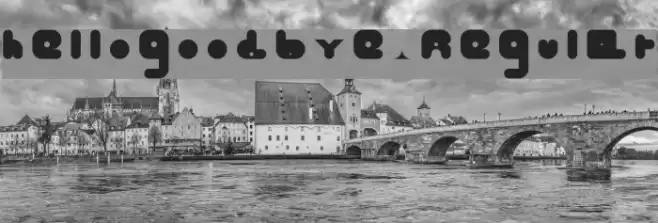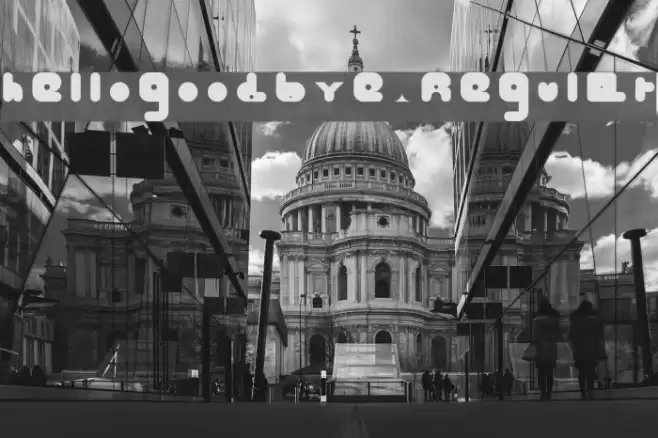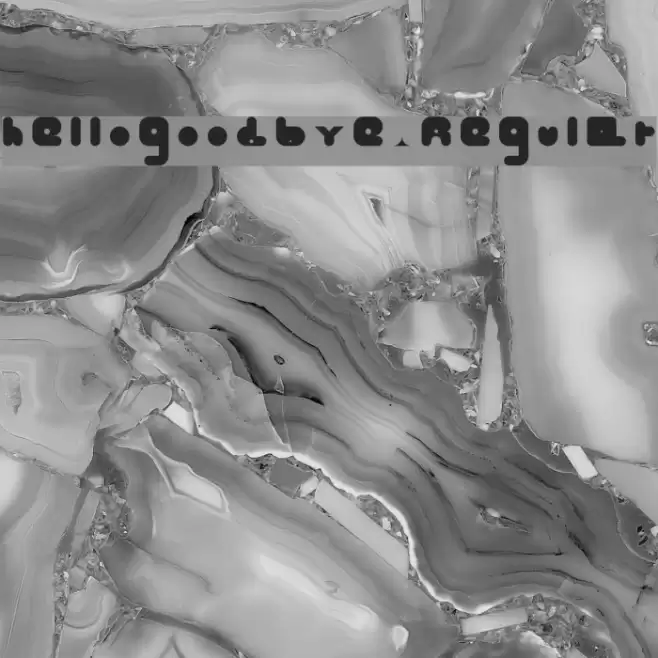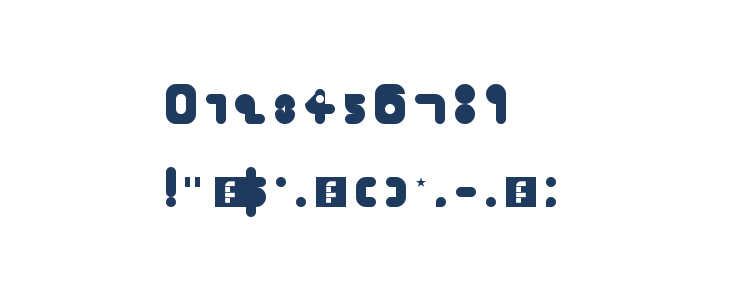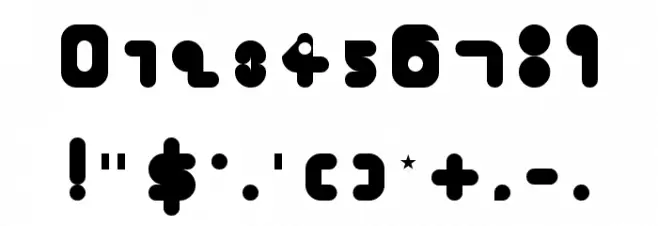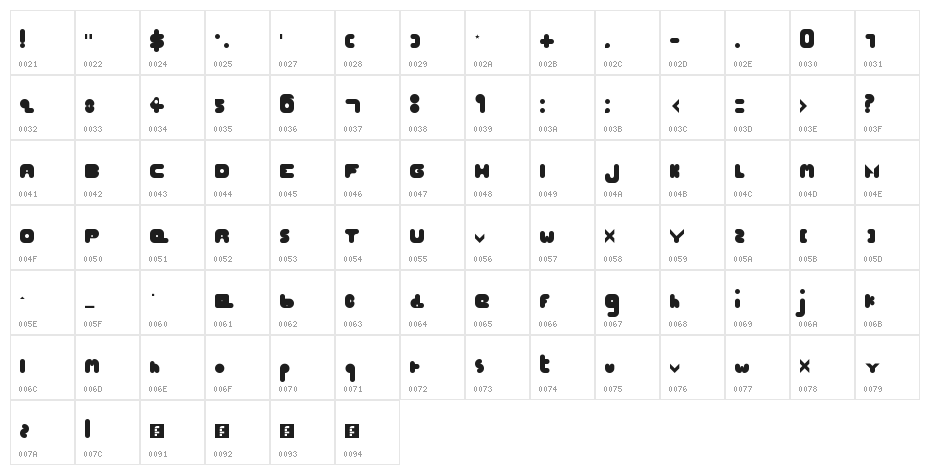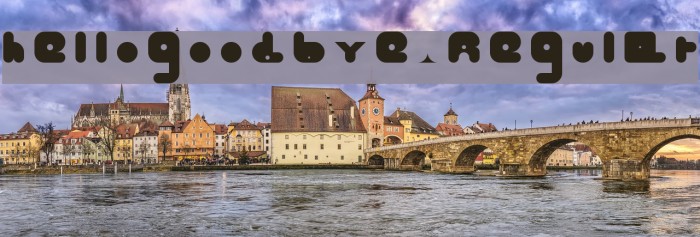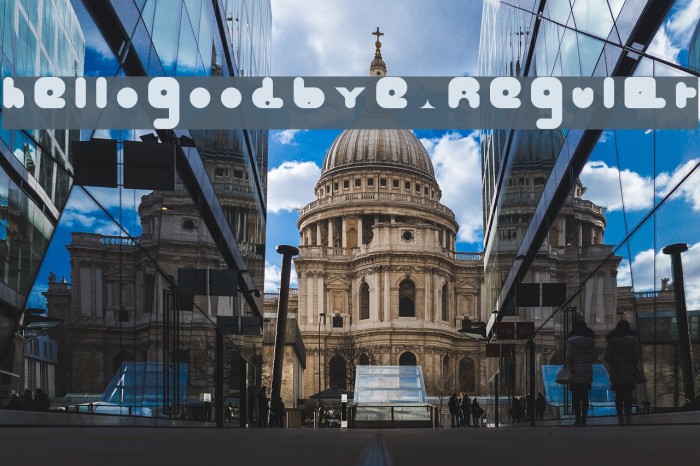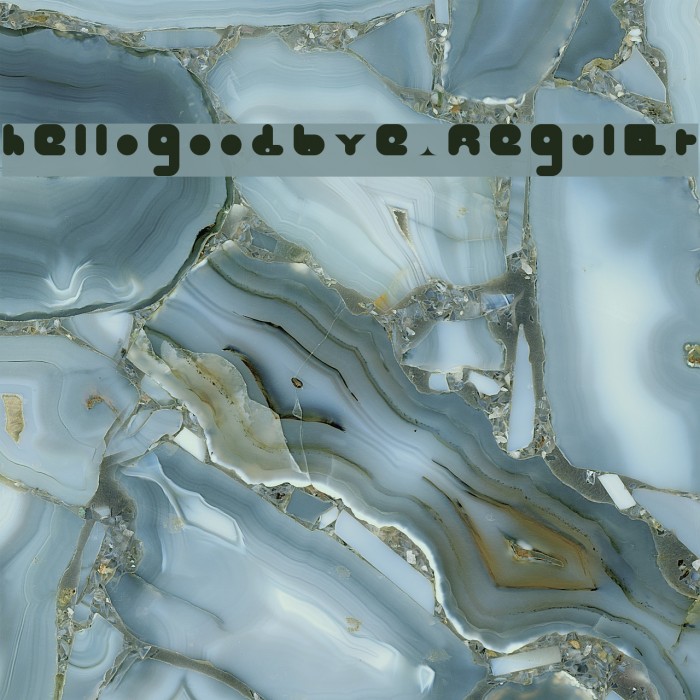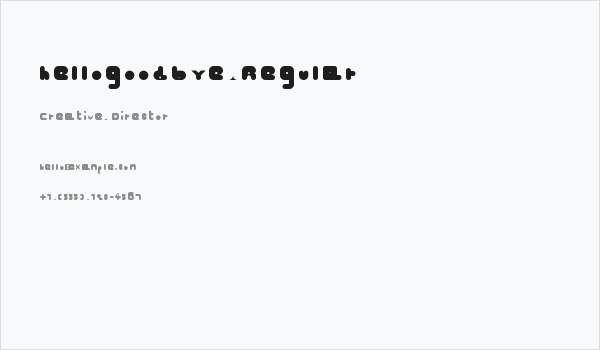
hellogoodbye Regular Font
hellogoodbye Regular Description
This font features a playful and rounded design, characterized by its bold, bubbly letterforms. Each character is crafted with smooth curves and a consistent thickness, giving it a friendly and approachable appearance. The font maintains a uniform weight across all characters, contributing to its cohesive look. Its unique style is both modern and whimsical, making it suitable for creative and informal applications. The rounded edges and lack of sharp angles add to its soft and inviting aesthetic, making it ideal for projects that require a touch of fun and personality.
A playful, rounded font with bold, bubbly letterforms from Uncategorized fonts.
- Proposed Projects: Ideal for children's books, playful branding, party invitations, and creative posters.